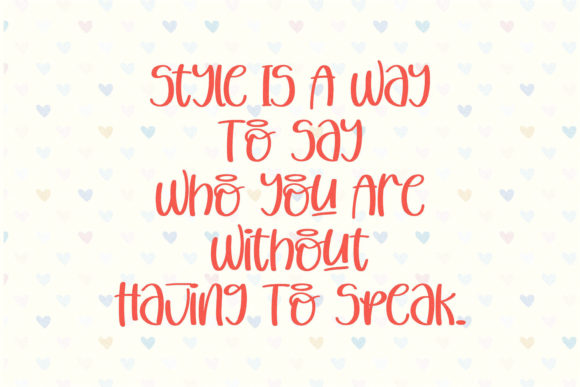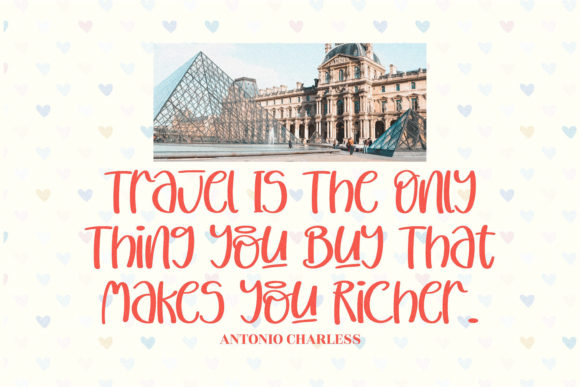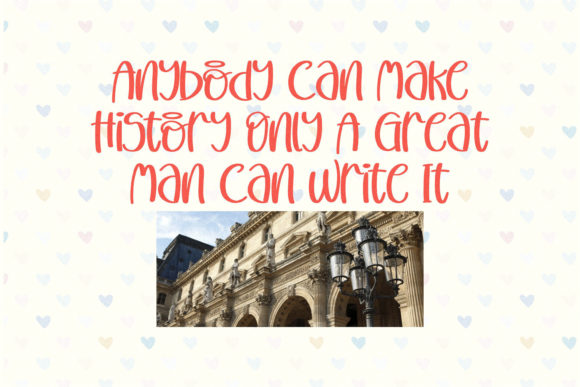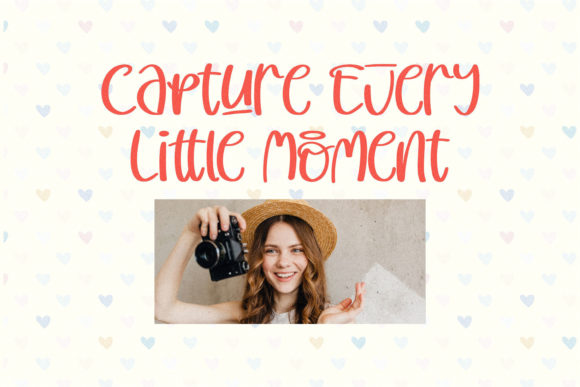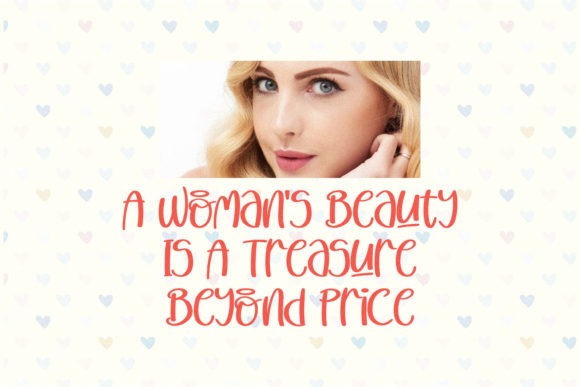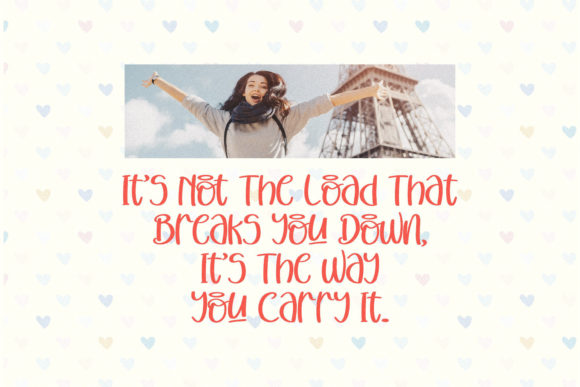
Introducing Cutie Delina Font: The Quirky and Friendly Display Font for Delicate Designs
Are you a designer or crafter looking for a font that can add a touch of whimsy and playfulness to your creations? Look no further than Cutie Delina Font! This quirky, fun, and friendly display font is perfect for a variety of projects, from baby showers and baptisms to children’s book titles and more.
What Makes Cutie Delina Font So Special?
Cutie Delina Font is a unique and charming font that is sure to capture the hearts of anyone who sees it. Its delicate and jolly touch makes it perfect for designs that require a touch of sweetness and innocence. The font’s quirky and playful nature also makes it ideal for projects that need a bit of personality and flair.
Cutie Delina Font is a versatile font that can be used for a wide range of projects, including:
- Baby showers: Add a touch of sweetness to your baby shower invitations, decorations, and gifts with Cutie Delina Font.
- Baptisms: Create beautiful and delicate baptismal certificates, programs, and decorations with this charming font.
- Children’s book titles: Bring your children’s book titles to life with Cutie Delina Font’s playful and whimsical touch.
- Party decorations: Use Cutie Delina Font to create adorable party decorations, such as banners, garlands, and cupcake toppers.
- Stationery: Add a touch of personality to your stationery, such as greeting cards, invitations, and gift tags, with this delightful font.
Why Designers and Crafters Love Cutie Delina Font
Designers and crafters love Cutie Delina Font for many reasons, including:
- Its unique and quirky personality: Cutie Delina Font is a one-of-a-kind font that is sure to stand out in any design.
- Its versatility: This font can be used for a wide range of projects, from formal to informal, and from digital to print.
- Its ease of use: Cutie Delina Font is easy to read and works well in a variety of sizes, making it perfect for both large and small designs.
- Its charm: This font has a certain charm and whimsy that is sure to delight anyone who sees it.
How to Use Cutie Delina Font in Your Designs
Using Cutie Delina Font in your designs is easy! Here are a few tips to get you started:
- Pair it with other fonts: Cutie Delina Font pairs well with a variety of other fonts, including serif and sans-serif fonts.
- Use it in large and small sizes: This font works well in both large and small sizes, making it perfect for headlines and body text.
- Experiment with colors: Cutie Delina Font looks great in a variety of colors, from bright and bold to soft and pastel.
- Have fun with it: Don’t be afraid to get creative and have fun with Cutie Delina Font! Its quirky and playful nature makes it perfect for experimenting with different designs and ideas.
Cutie Delina Font is a unique and charming font that is perfect for designers and crafters who want to add a touch of whimsy and playfulness to their creations. Its delicate and jolly touch makes it ideal for a variety of projects, from baby showers and baptisms to children’s book titles and more. With its ease of use, versatility, and charm, Cutie Delina Font is sure to become a favorite in your design arsenal.